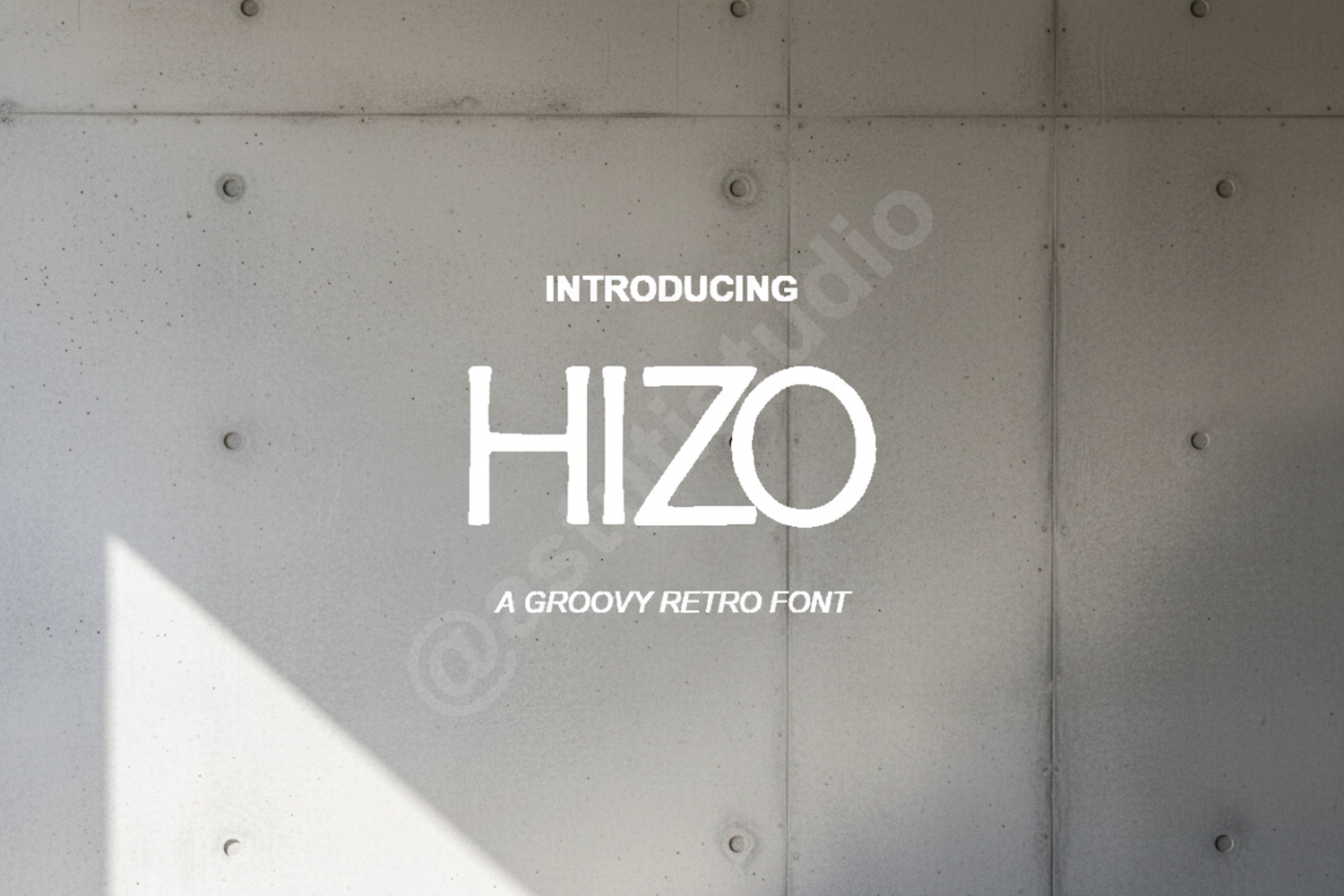
Hizo - Sophisticated Modern Sans Serif
Hizo
Hizo is a premium sans serif typeface that embodies modern sophistication and clean lines. Designed with precision, it offers a perfect balance between professional structure and contemporary flair. Whether you are crafting a high-end brand identity or a minimalist editorial layout, Hizo provides the versatility and clarity needed to make your message stand out.
- Branding and Logo Design: Create a memorable and professional brand presence.
- Wedding Stationery: Perfect for modern, clean invitation suites and RSVP cards.
- Editorial Design: Ideal for high-end magazine headers and legible body text.
- Social Media: Enhance your digital content with a crisp and readable aesthetic.
- Product Packaging: Elevate your retail presence with premium, minimalist typography.